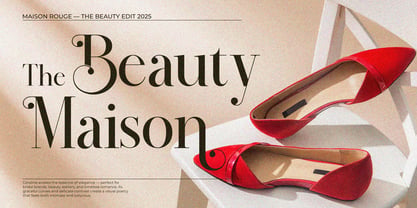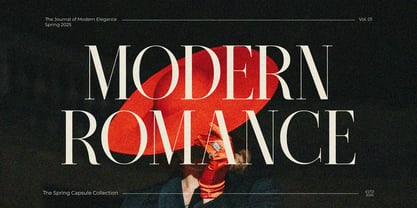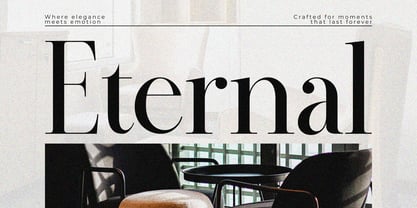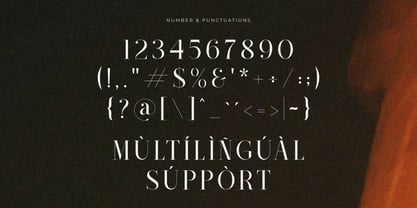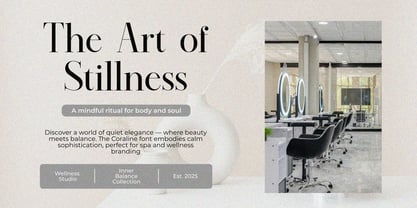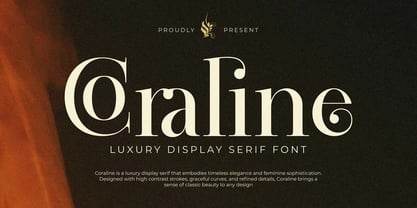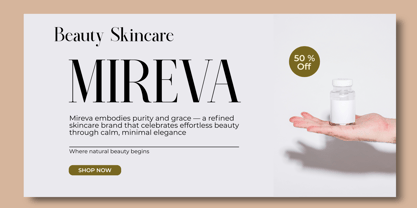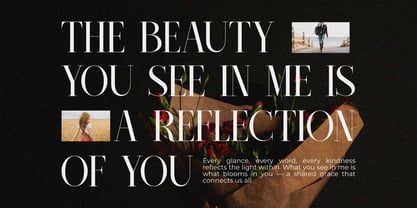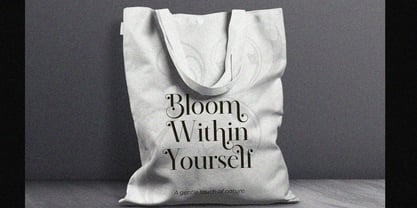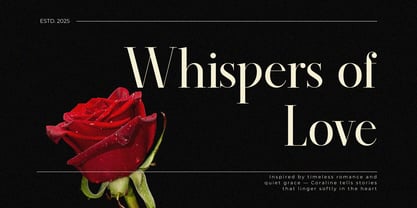
Coraline
The Coraline Font Family was designed by Su Hirno and published by Zafira Type. Coraline contains 2 styles and family package options. More about this family
Coraline is a luxury display serif that embodies timeless elegance and feminine sophistication. Designed with high-contrast strokes, graceful curves, and refined detailing, Coraline brings a sense of classic beauty to any visual composition. Perfect for branding, editorial layouts, and premium product design, it adds a soft yet confident presence that feels both contemporary and enduring. What’s Included : – Standard glyphs – Ligatures & Alternates – Multilingual – Works on PC & Mac Simple installations – Symbols and Number Thank you and best of luck with your designs!